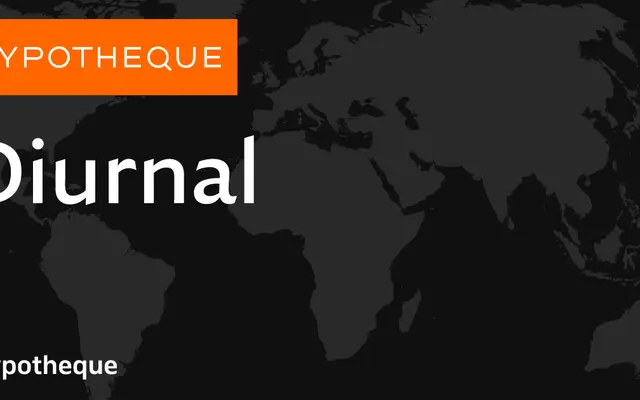
Diurnal specimen from Typotheque
A two-subfamily serif system from Typotheque, spanning text and display optical sizes across five weights with a variable font option.
Diurnal is organised into a Text family and a Display family, each running from Light to Black with matching italics, totalling ten static styles per subfamily. A variable font version accompanies the static cuts. The system suits editorial and long-form publishing work where both body text and headline setting need to share a coherent voice.
Diurnal presents as a text and display serif system with upright and italic cuts across multiple weights, consistent with a transitional or contemporary text serif classification. The Display subfamily and variable font offering suggest a system designed for both body text and larger-scale typesetting.